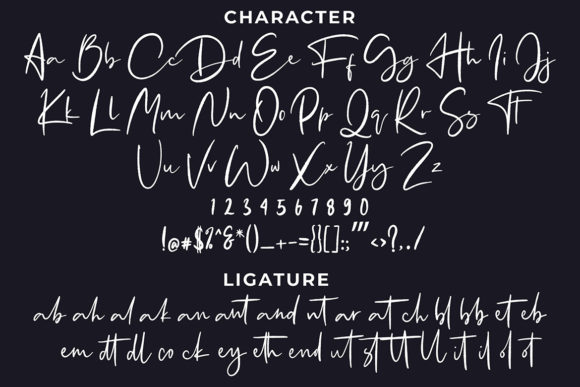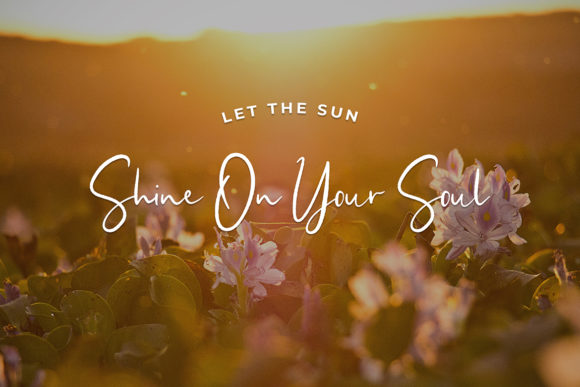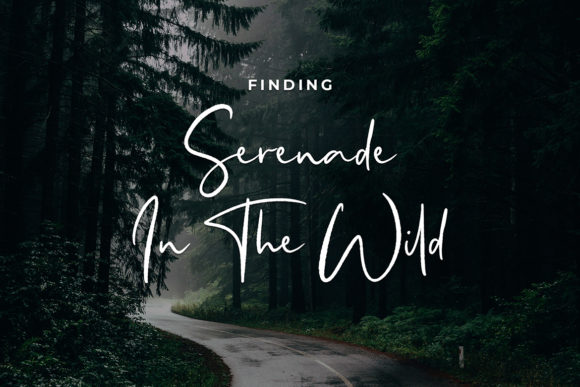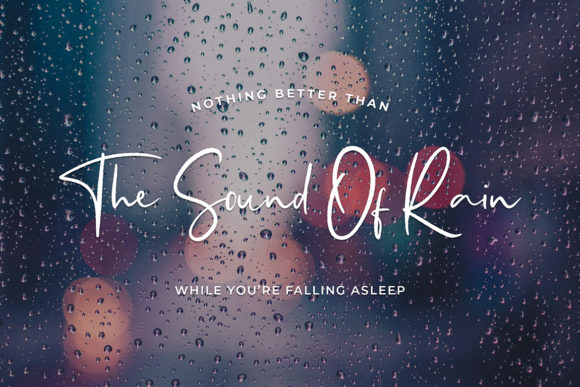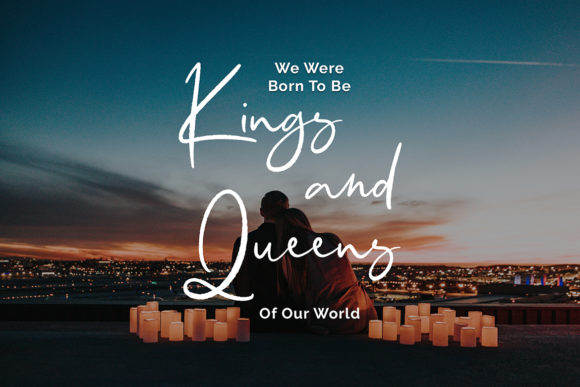
Introduction to Santique Font
Santique feels incredibly magical and fancy.
This gorgeous script will take any design project to the next level .
Key Features of Santique Font
Why Choose Santique Font?
Santique Font offers exceptional quality and versatility, making it a valuable addition to your design toolkit. Whether you’re creating for personal projects or commercial use, Santique Font delivers professional results.